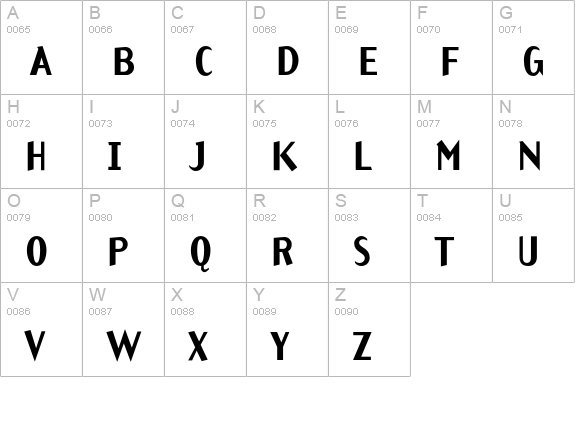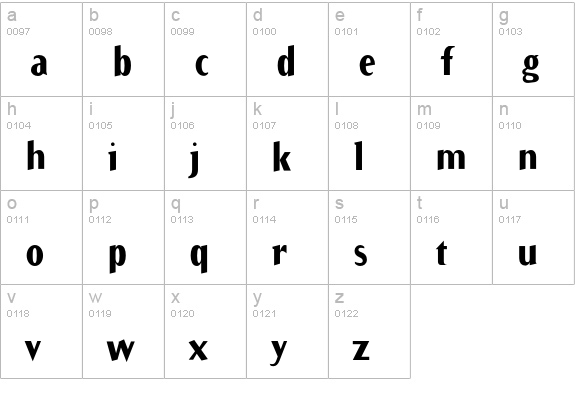
ArbitraryBold Font Details
ArbitraryBold is a bold and eye-catching font that commands attention with its strong and assertive presence. Perfect for headlines, titles, and other prominent text, this font exudes confidence and power. With its sharp edges and sleek design, ArbitraryBold makes a bold statement in any design project. The best part about ArbitraryBold is that it is completely free to download at FontsMarket.com. This means you can easily add this striking font to your collection without any cost. Whether you're working on a graphic design project, creating a logo, or crafting promotional materials, ArbitraryBold is a versatile choice that will elevate your work to the next level. Don't miss out on this opportunity to enhance your designs with the impactful style of ArbitraryBold. Download it for free today at FontsMarket.com and start making a bold statement with your typography.